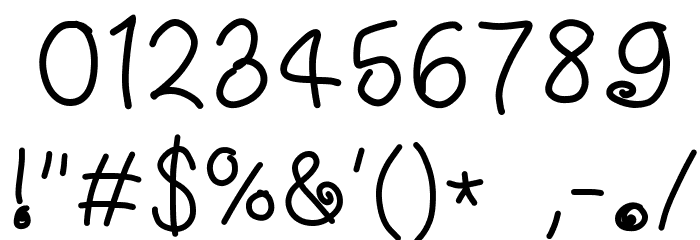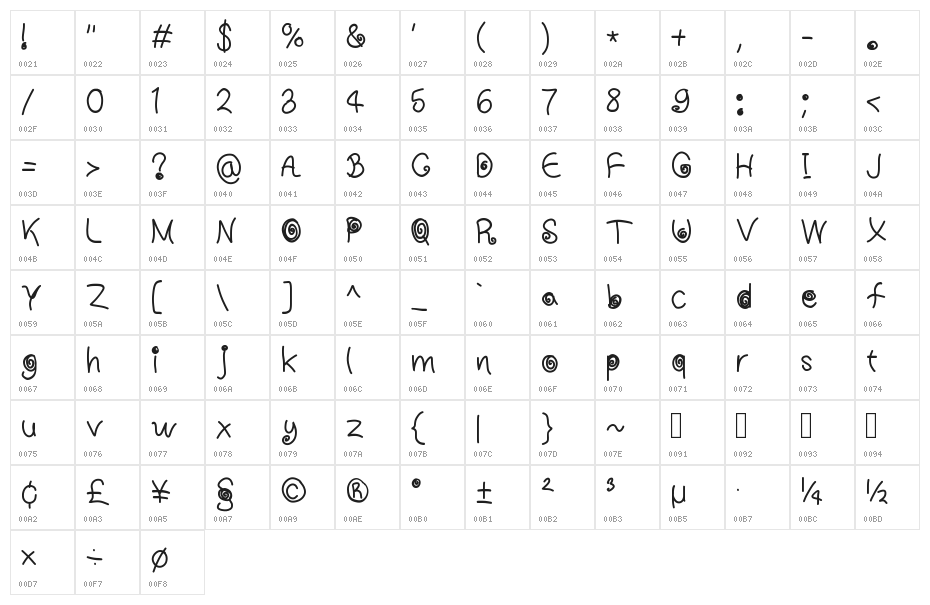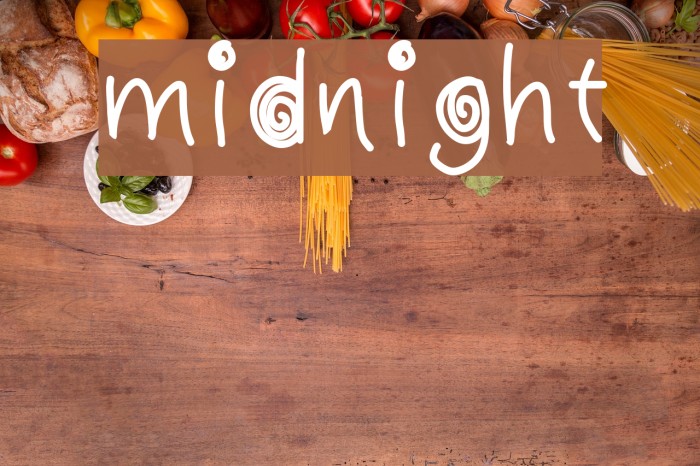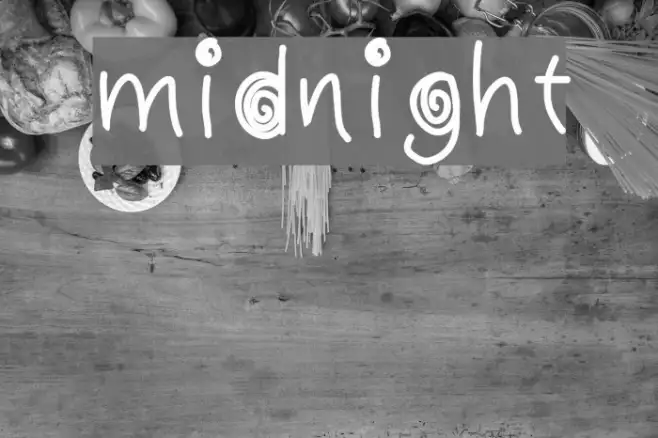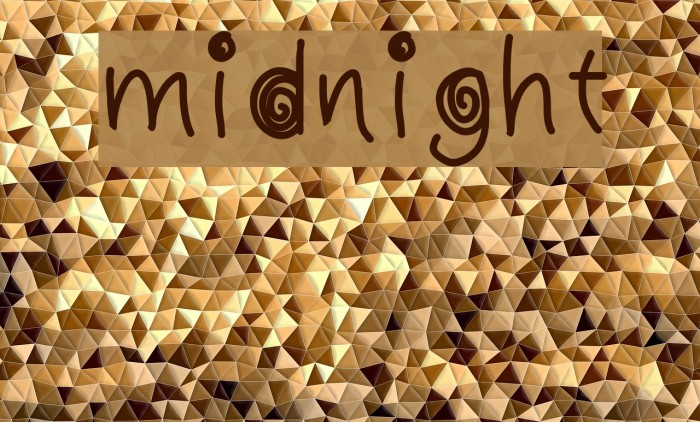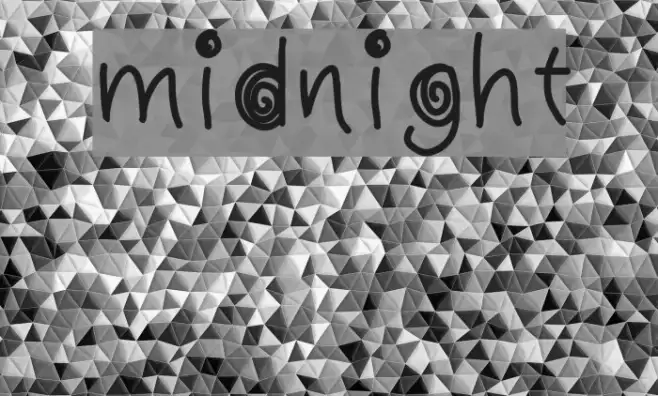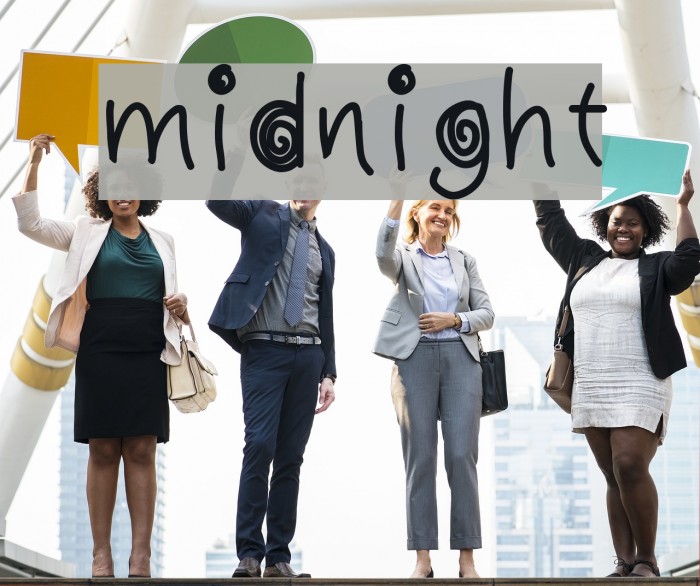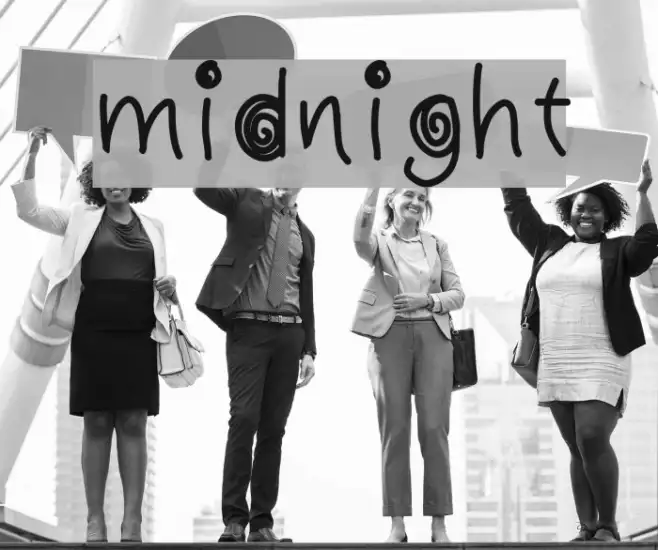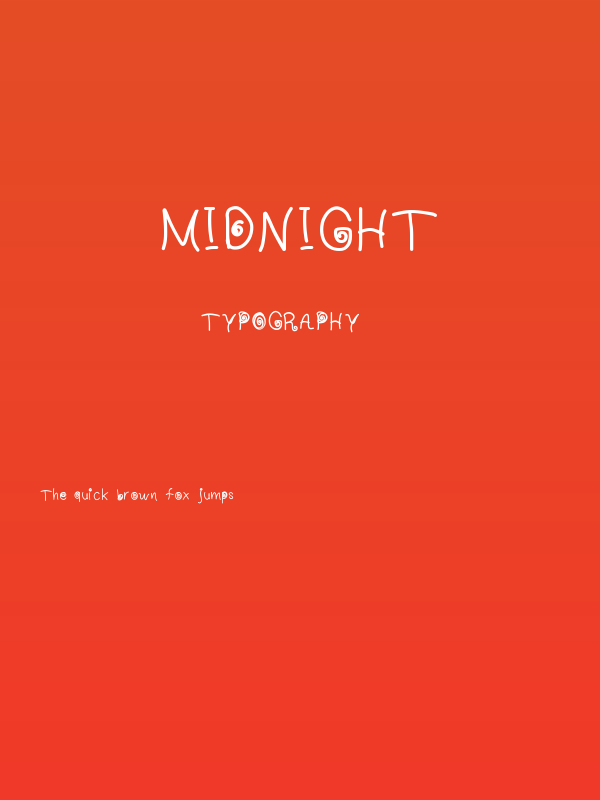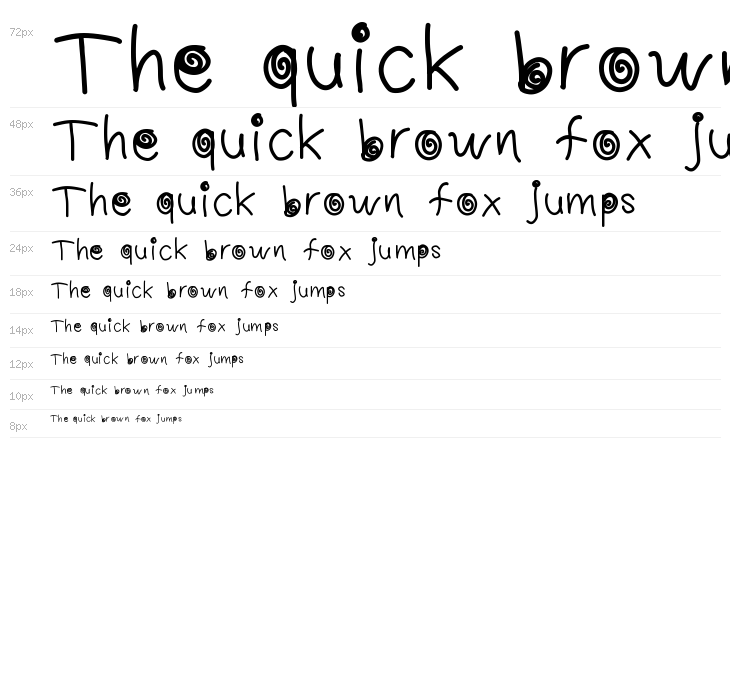
midnight Font
midnight Description
This whimsical and playful font features a unique, hand-drawn style with a touch of eccentricity. Each character is crafted with a distinct, swirling design, adding a sense of movement and creativity. The uppercase and lowercase letters maintain a consistent style, with some letters incorporating spiral elements that enhance their quirky appearance. The numbers and special characters follow the same artistic theme, making the font cohesive and visually engaging. Its informal and artistic nature makes it suitable for projects that require a fun and lighthearted touch.